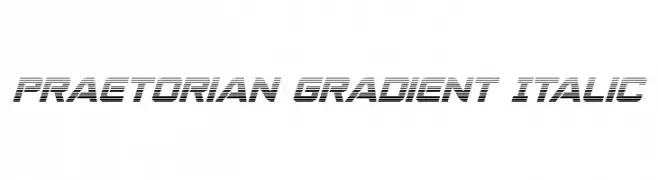
A futuristic, gradient italic font with dynamic horizontal lines.
A bold, italicized font with a futuristic gradient effect using horizontal lines.
A futuristic, bold font with a gradient line pattern and geometric shapes.
A dynamic, gradient-striped italic font with a futuristic feel.
A futuristic, gradient-lined font with a bold, dynamic style.
Bold, italic font with a gradient effect created by horizontal lines.
A bold, modern font with horizontal line gradients creating a dynamic effect.
A futuristic font with a gradient line effect, offering a dynamic and modern style.
A futuristic, italicized font with a gradient effect and dynamic, high-tech design.
A bold, gradient-lined font with a futuristic and dynamic style.
A bold, italic font with a futuristic gradient line design.
A bold, italicized font with a gradient effect and angular design.
A futuristic, italic font with a gradient line effect, emphasizing speed and motion.
A bold, gradient-striped italic font with a modern, dynamic style.
A bold, futuristic font with a horizontal stripe gradient effect.
A bold, futuristic font with a gradient effect created by horizontal lines.
A futuristic font with gradient lines and a dynamic, modern design.
A futuristic, italicized font with gradient stripes and a dynamic appearance.
A bold, italicized font with a gradient effect created by horizontal lines, offering a dynamic and modern appearance.
A futuristic, gradient-lined font with a bold, dynamic style.
A futuristic, bold font with a gradient effect created by horizontal lines.
A futuristic, italicized font with a gradient-like, dynamic design.
A bold, italic, futuristic font with gradient line effects and tight spacing.
A bold, italicized font with a gradient stripe effect, exuding modernity and dynamism.
A bold, futuristic font with a gradient effect created by horizontal lines.
A bold, italicized font with a gradient line effect, offering a modern and dynamic style.
A futuristic, italicized font with a gradient effect and dynamic design.
A futuristic font with a digital gradient effect and geometric structure.
A futuristic italic font with gradient lines and a dynamic, tech-inspired design.
A bold, futuristic font with a gradient effect created by horizontal lines.
A futuristic, italicized font with gradient stripes and a dynamic, modern style.
A dynamic, italicized font with a futuristic gradient effect and striped pattern.
A bold, italicized font with a gradient effect, conveying speed and modernity.
A dynamic, italic font with a futuristic, gradient line design.
A modern, striped font with a dynamic gradient effect.